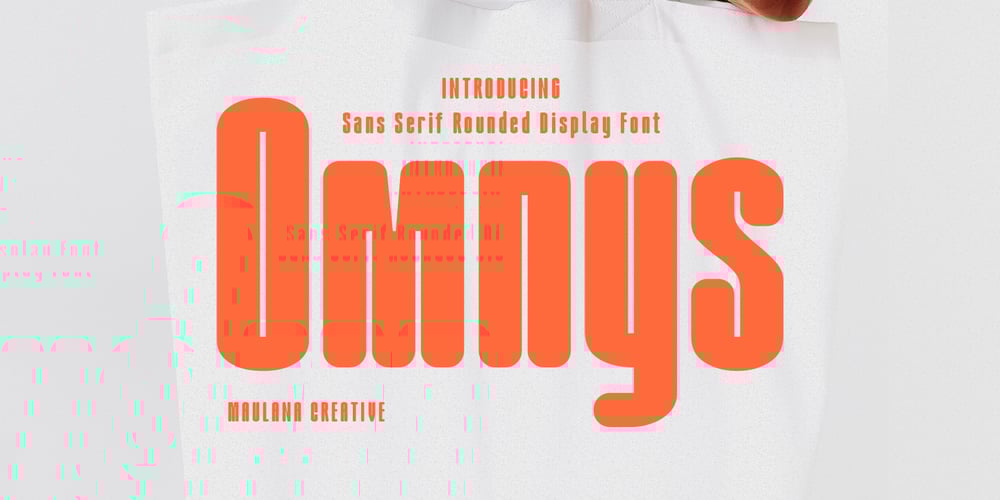
MC Omnys
MC Omnys font
MC Omnys Font Family was designed by Gilang Maulana and published by Maulana Creative. MC Omnys contains 1 styles and family package options. Omnys is a common sans serif with round soft edges stroke font. Bold stroke, fun character with a bit of ligatures and alternates. To give you an extra creative work. Omnys font support multilingual more than 100+ language. This font is good for logo design, Social media, Movie Titles, Books Titles, a short text even a long text letter and good for your secondary text font with script or serif. Make a stunning work with Omnys font. Cheers, Maulana Creative